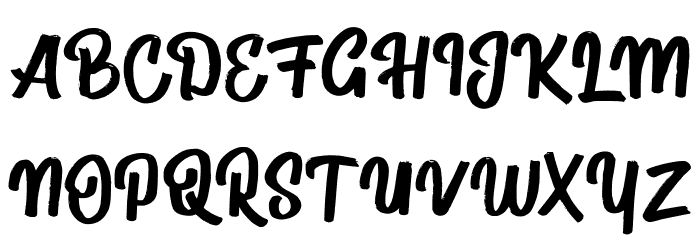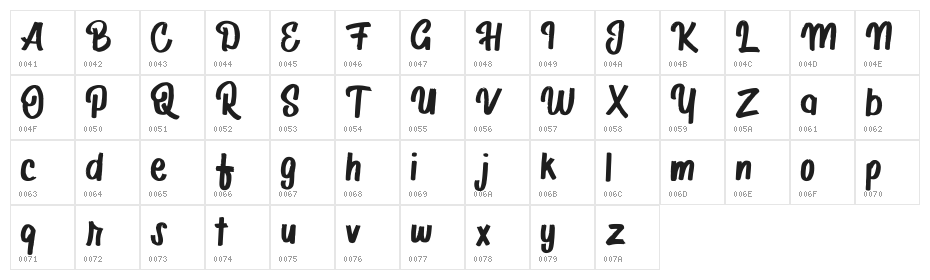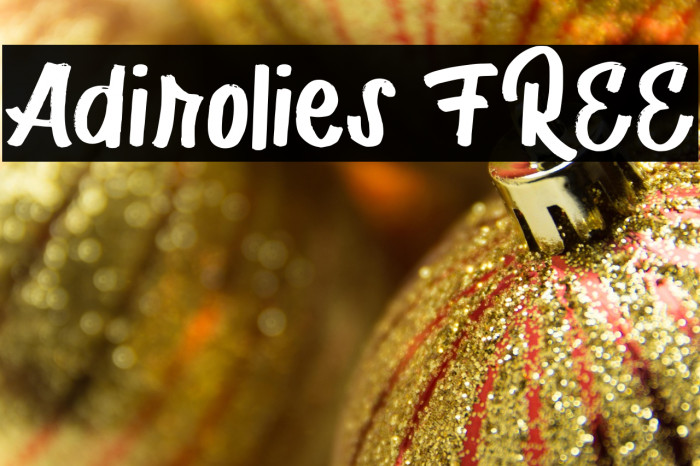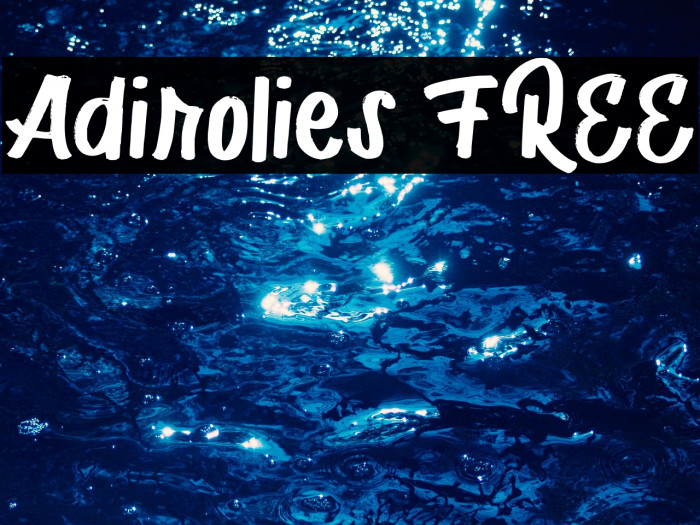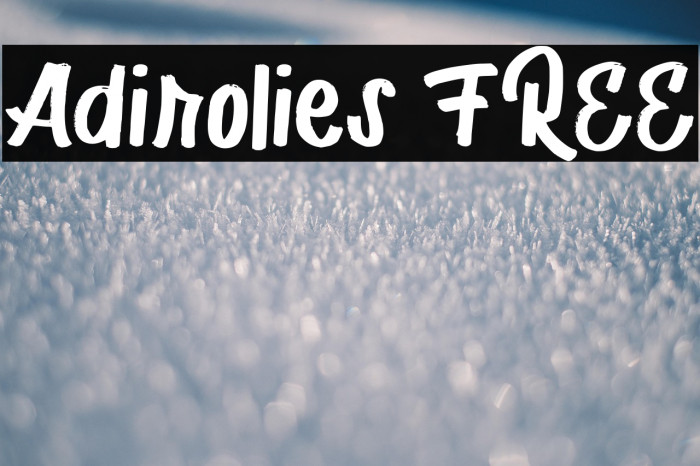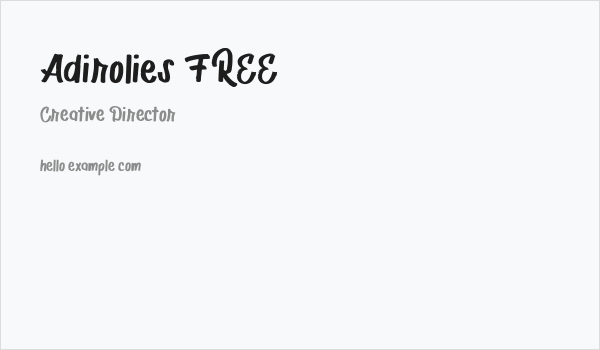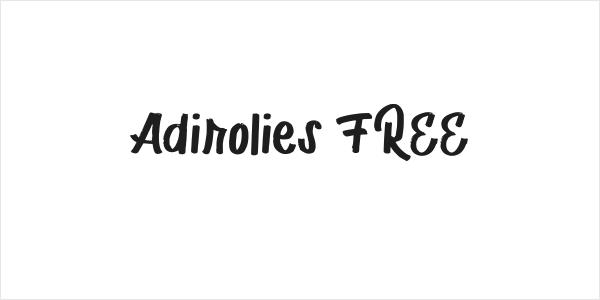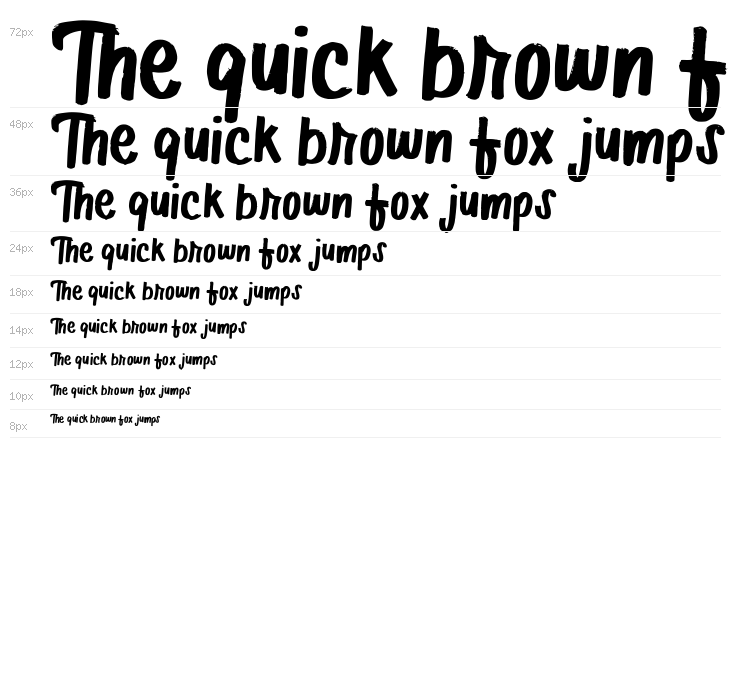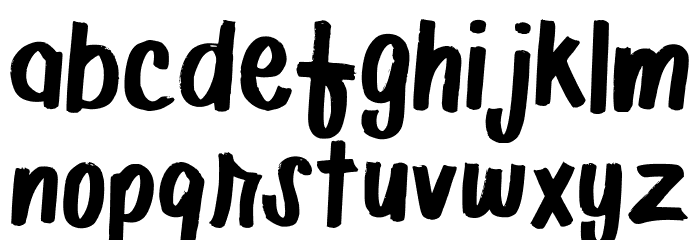
Adirolies FREE Font
Adirolies FREE Description
This font features a bold and expressive style with a handwritten flair. The letters are designed with a playful and dynamic appearance, characterized by thick strokes and rounded edges. The uppercase and lowercase letters maintain a consistent flow, giving the font a cohesive look. The characters exhibit a slight slant, adding to the casual and informal vibe. The font's unique personality makes it stand out, with each letter having its own distinct shape while still harmonizing with the others. The overall design is both modern and artistic, making it suitable for creative projects.